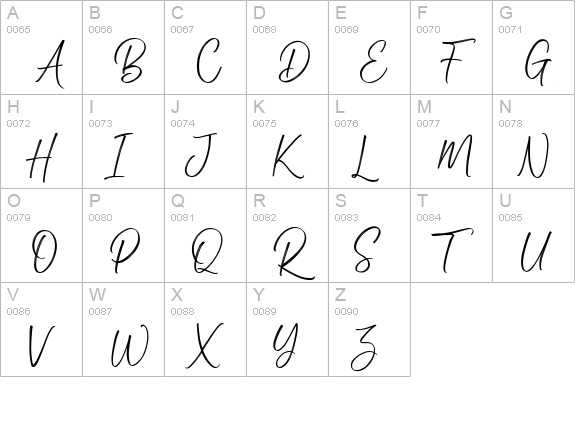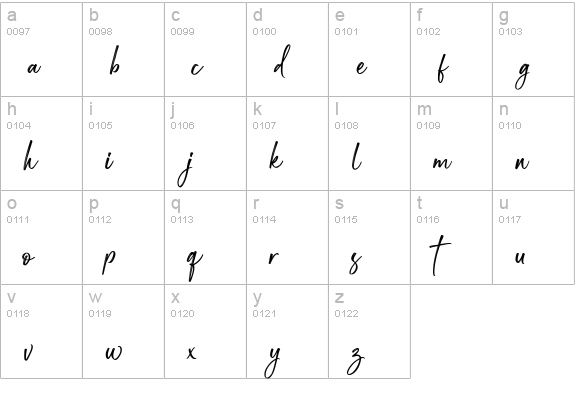
The Roughly Handwritten Font is a free for personal use font in the Script > Brush category, designed by hanzel_space. It has been downloaded 113 times and is available for Windows, Mac and Linux.
The Roughly Handwritten Font is a charming and rustic typeface that exudes a sense of warmth and authenticity. With its uneven lines and imperfect strokes, this font brings a handmade feel to your projects, adding a touch of personal flair and uniqueness. Perfect for adding a casual and friendly vibe to your designs, whether it's for invitations, posters, greeting cards, or branding materials.